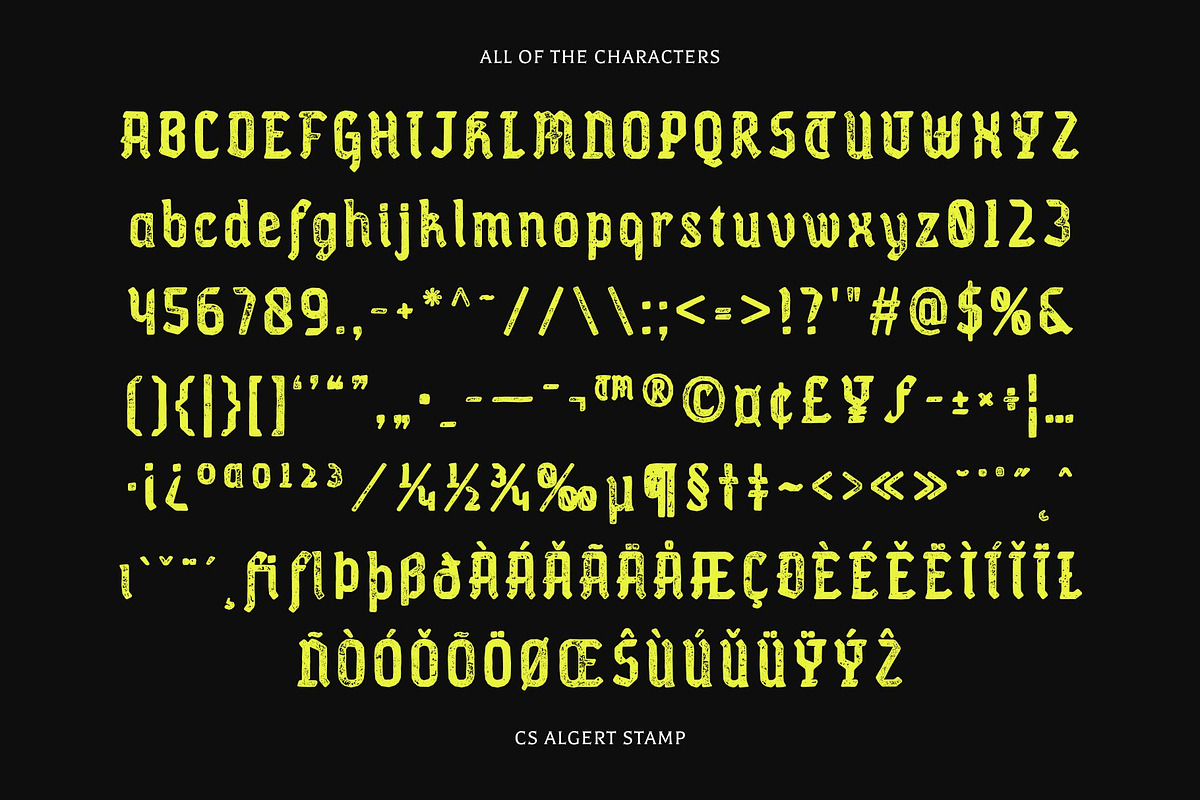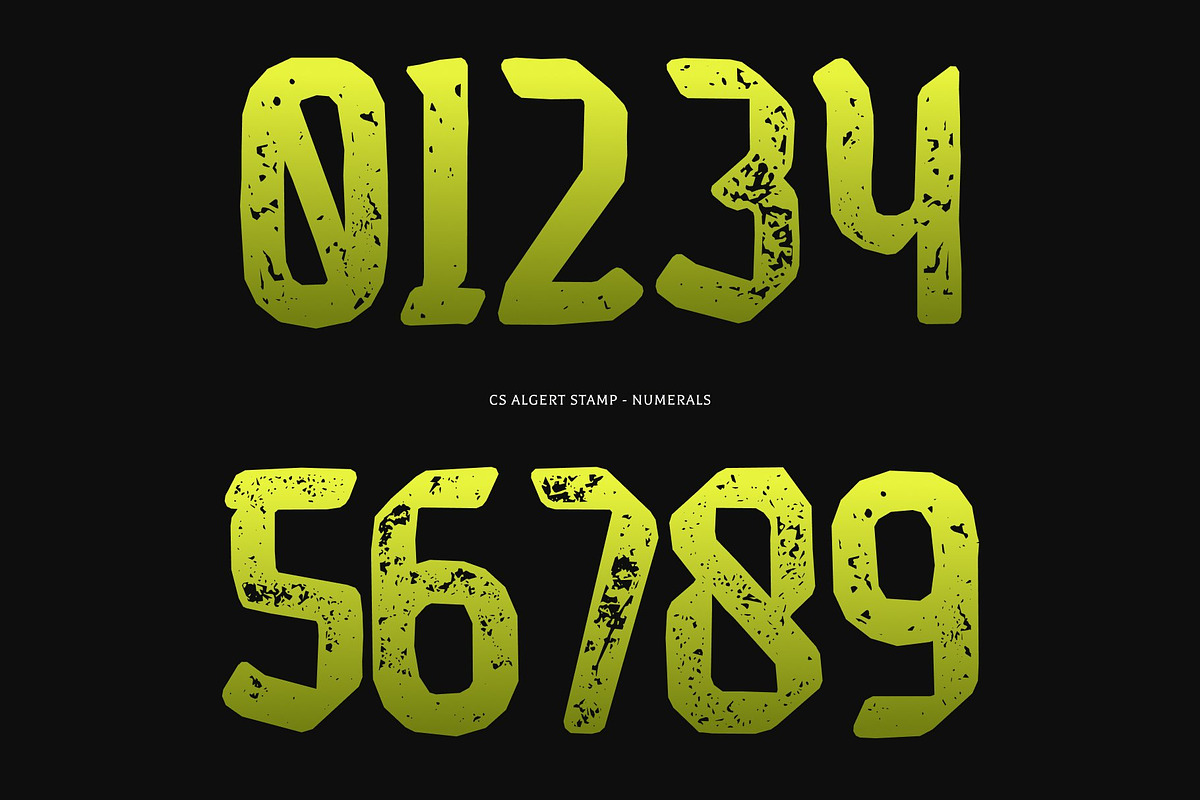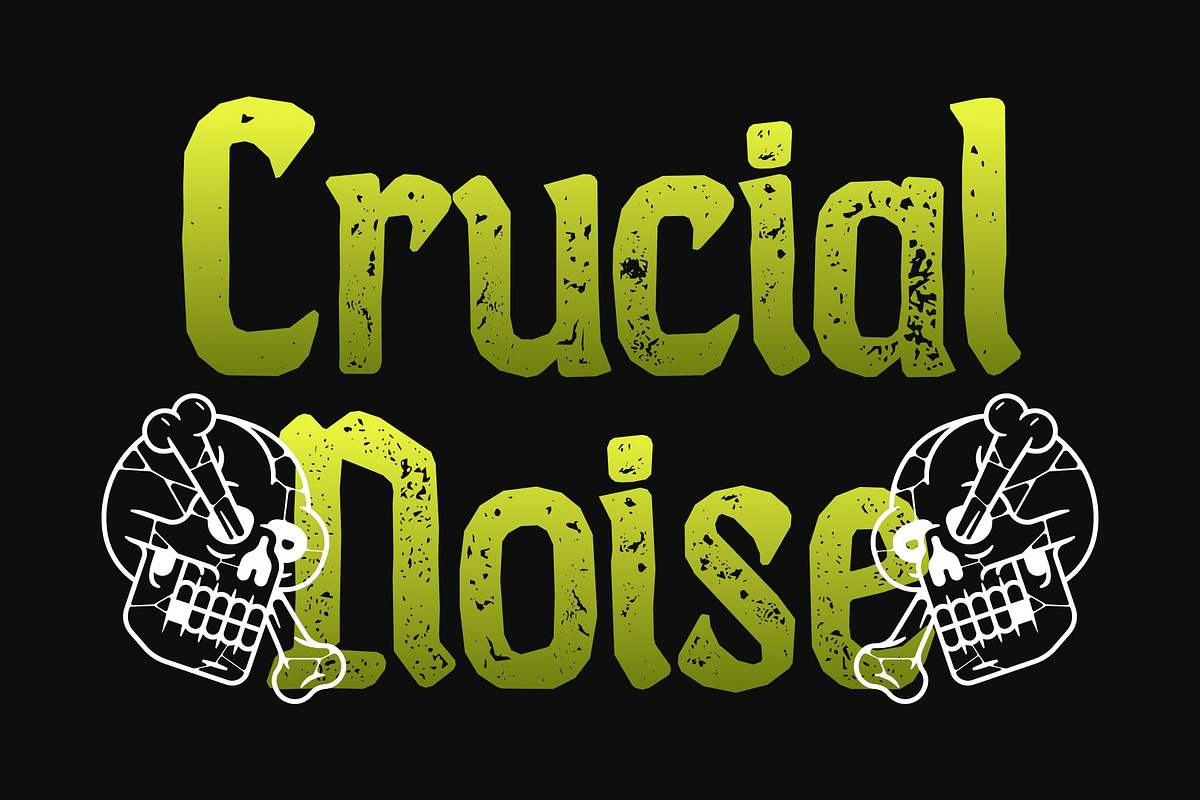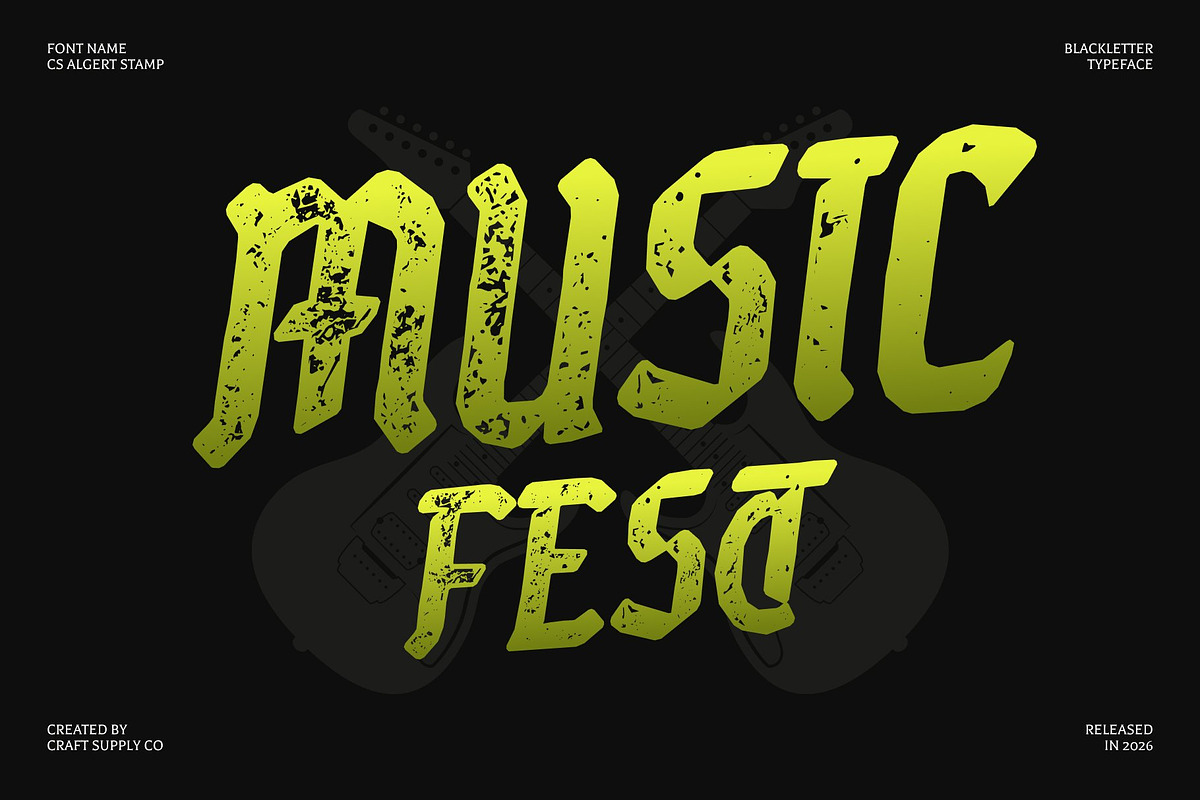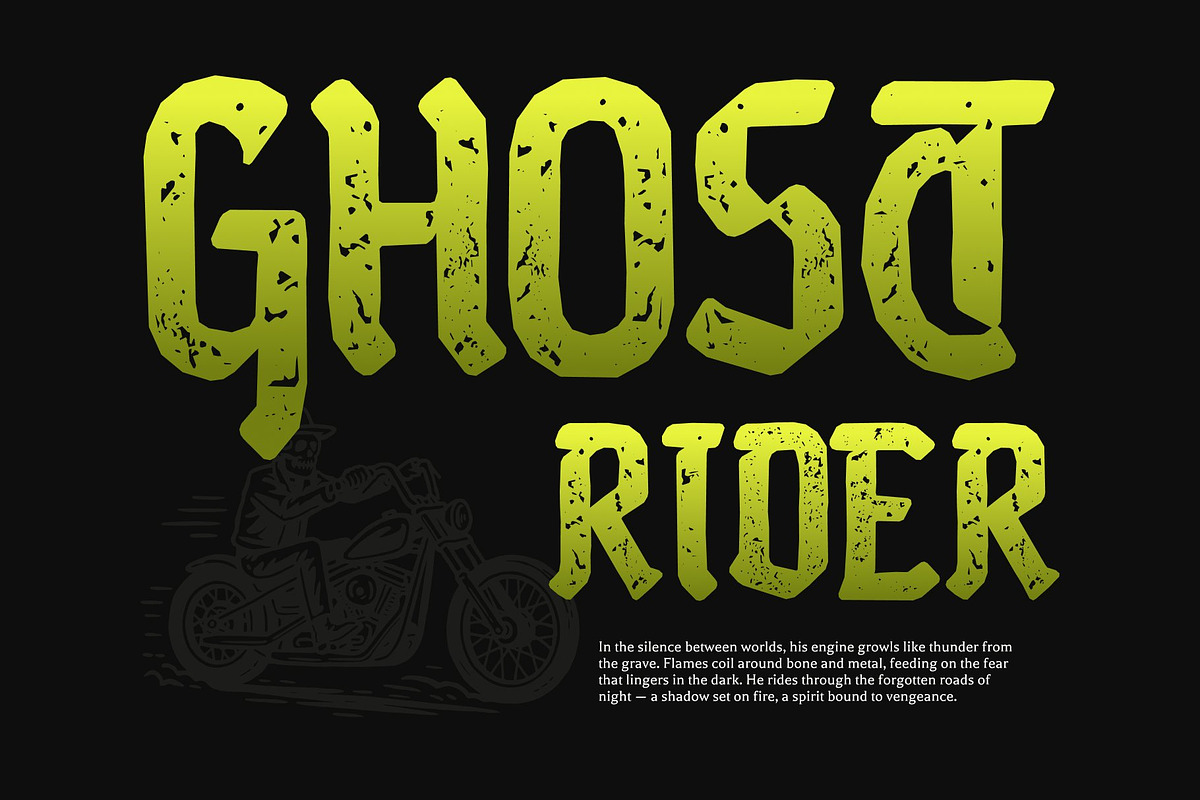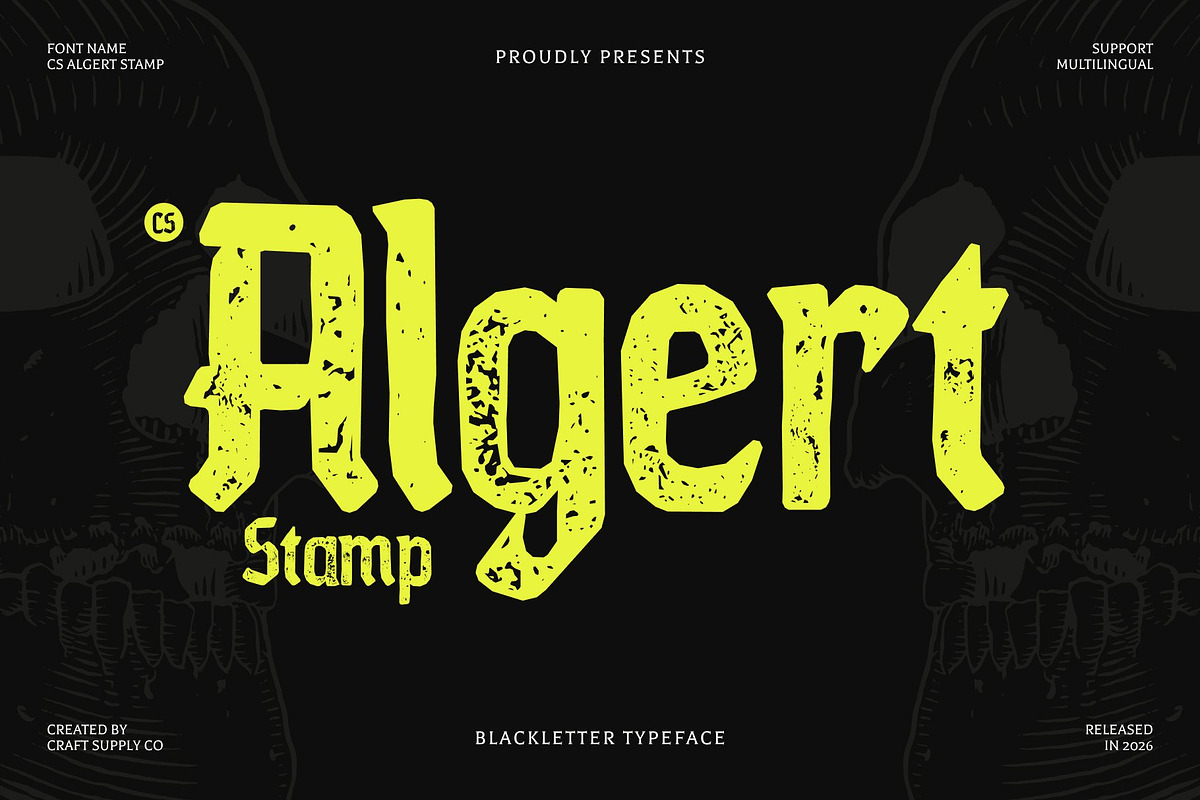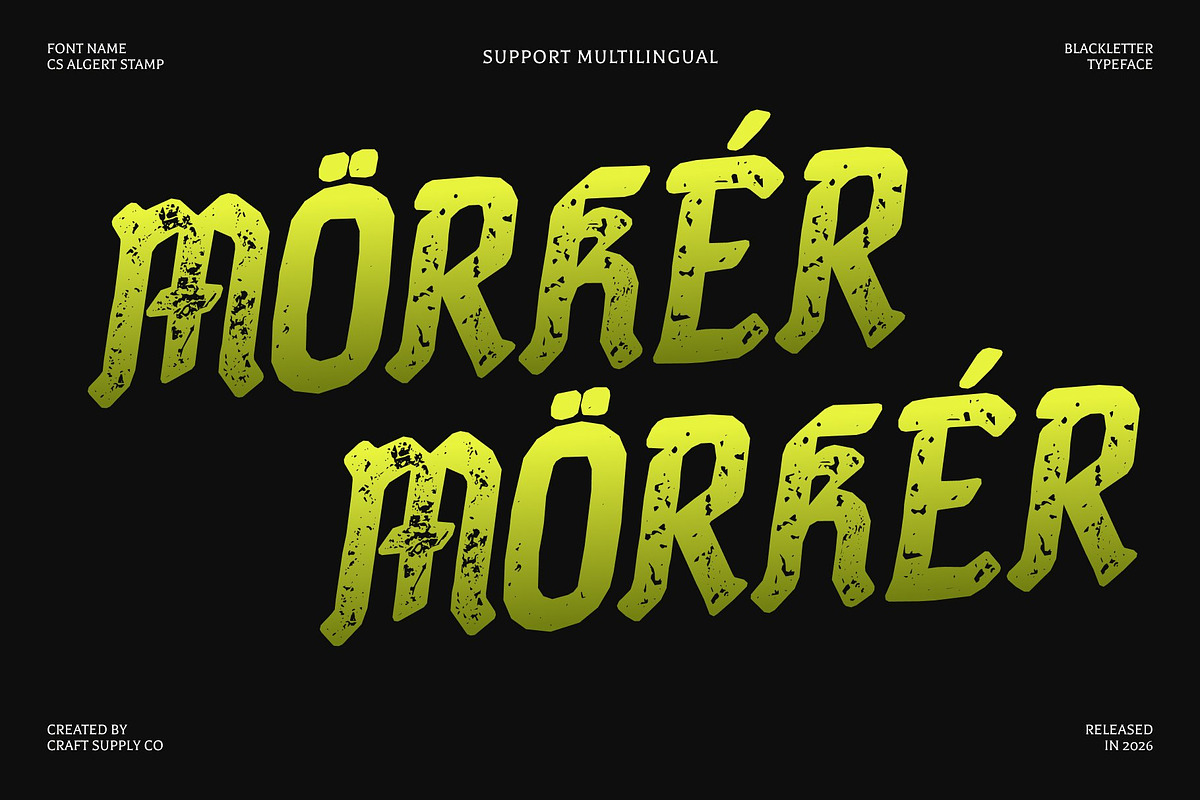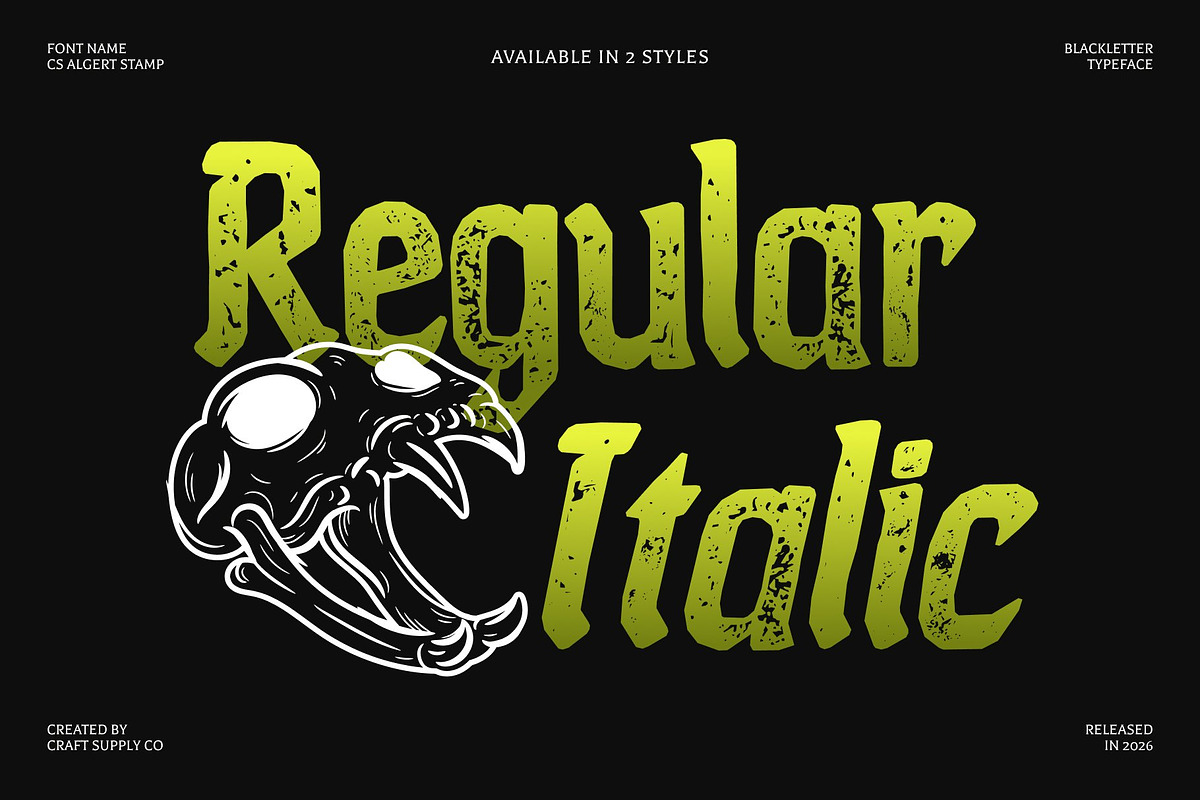
CS Algert Stamp
CS Algert Stamp – Modern Blackletter Font with a Contemporary Twist Traditional Blackletter with a Textured Stamp Character This reimagines classic Blackletter typography through a bold stamped finish that adds depth, texture, and historical atmosphere. Rooted in traditional Gothic elegance, this font is infused with a contemporary structure and a worn, ink-pressed appearance, creating a powerful blend of heritage and modern design. The stamp effect introduces an authentic, old-world feel that makes each letter look tactile, expressive, and richly crafted.
Ornate Letterforms with Dramatic Visual Impact The intricate Blackletter details are enhanced by a distressed stamp texture, giving the font a bold, dramatic presence. Each character feels pressed by hand, with subtle imperfections that add personality and artistic depth. This combination of ornate structure and rough texture makes the font ideal for designs that demand authority, and strong visual storytelling.
Vintage Authority for Luxury and Themed Designs This font excels in luxury branding, ceremonial designs, themed events, album covers, and statement headlines. Its historical essence paired with a stamped, aged surface creates a sense of prestige and authenticity, making it perfect for visuals that aim to feel exclusive, dramatic, and timeless.
A Fusion of Heritage, Texture, and Modern Expression By blending classic Blackletter forms with a contemporary layout and a vintage stamp finish, delivers a unique typographic voice. It preserves the grandeur of traditional Gothic lettering while adding a modern sensibility and handcrafted texture.
- CS Algert Stamp Regular
- CS Algert Stamp Italic